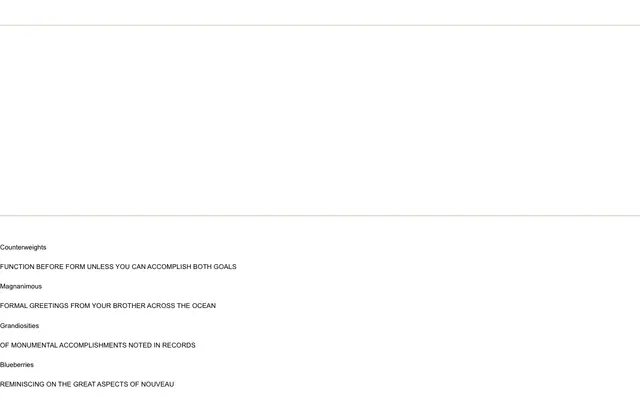
Bariloche
A multi-width grotesque sans from Cantrell Type spanning five widths from Condensed to Wide.
Bariloche is a grotesque sans-serif offered in five widths: Condensed, Semicondensed, Regular, Expanded and Wide. With 380 glyphs per style, the family covers a reasonable Latin character set for both print and screen applications. Available under separate desktop and digital licensing, it suits logo work, printed materials and digital products.
The width variants from Condensed through Wide and the overall structure suggest a grotesque sans-serif family with multiple width axes, consistent with a contemporary workhorse grotesque.